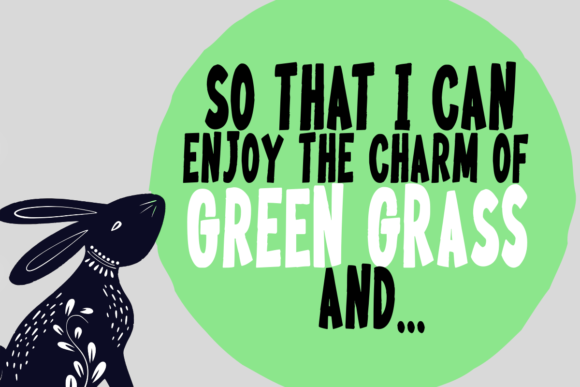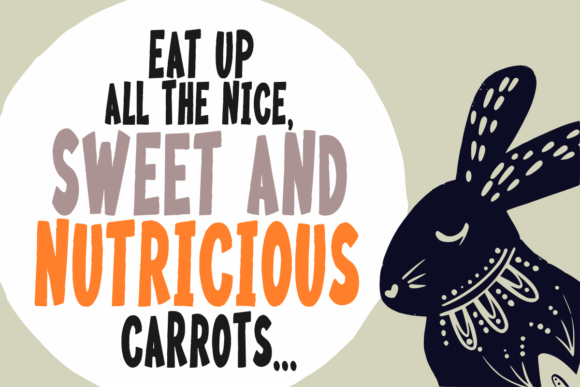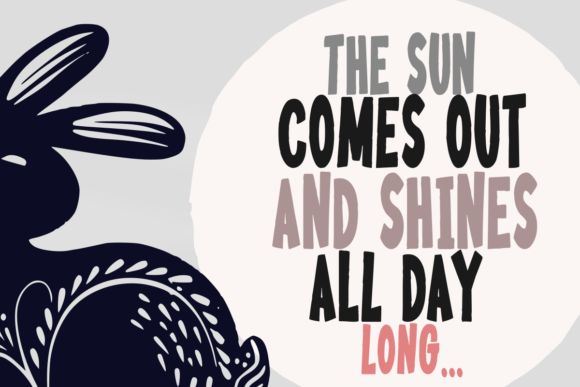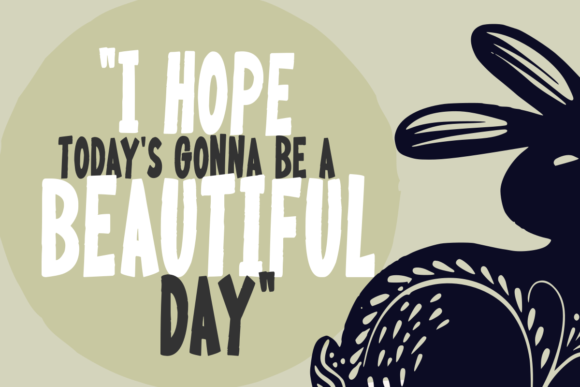
Introduction to Moody Bunny Font
Have you ever found yourself stuck in a creative rut, staring at a blank page with no inspiration in sight? You know, that moment when everything seems to be missing that one special element to bring your project to life? That’s exactly where the Moody Bunny Font comes in – a bold, yet friendly display font that’s sure to spark your imagination and elevate your designs.
As a valuable resource for designers, the Moody Bunny Font is a high-quality, free download that’s perfect for any creative project. Its natural and unique style makes it incredibly versatile, allowing you to experiment with a wide range of designs and ideas. From logos to social media graphics, the Moody Bunny Font is sure to add a touch of personality to your work.
Key Features of Moody Bunny Font
- Moody Bunny Font is a unique and creative typeface, perfect for designers looking to add a touch of whimsy to their work.
- Includes a range of characters and glyphs, including uppercase and lowercase letters, numbers, and punctuation marks.
Honest Review: Moody Bunny Font
One of the things that I love about the Moody Bunny Font is its versatility. It’s perfect for creative projects that require a unique touch. The font comes with a transparent background, which makes it easy to customize and layer with other design elements.
- ✨ Unique and playful design style
- ✨ High quality and crisp font rendering
- ⚠️ Limited character set, may not be suitable for long-form text
- ⚠️ Not ideal for formal or professional designs
Overall, I’m really impressed with the Moody Bunny Font. It’s a great addition to any designer’s toolkit, and I’m excited to see how it can be used in creative projects. The only limitations are minor, and I’m confident that the creator will continue to update and improve the font in the future.
The Moody Bunny Font is a high-quality, free download that can be used for any creative project. With its unique and playful design, this font is perfect for adding a touch of whimsy to your designs.
The Moody Bunny Font is perfect for a wide range of creative projects, including social media graphics, presentations, and even children’s books. With its playful and whimsical design, this font is sure to add a touch of fun to any project.